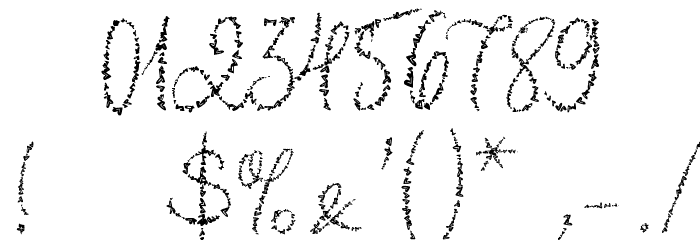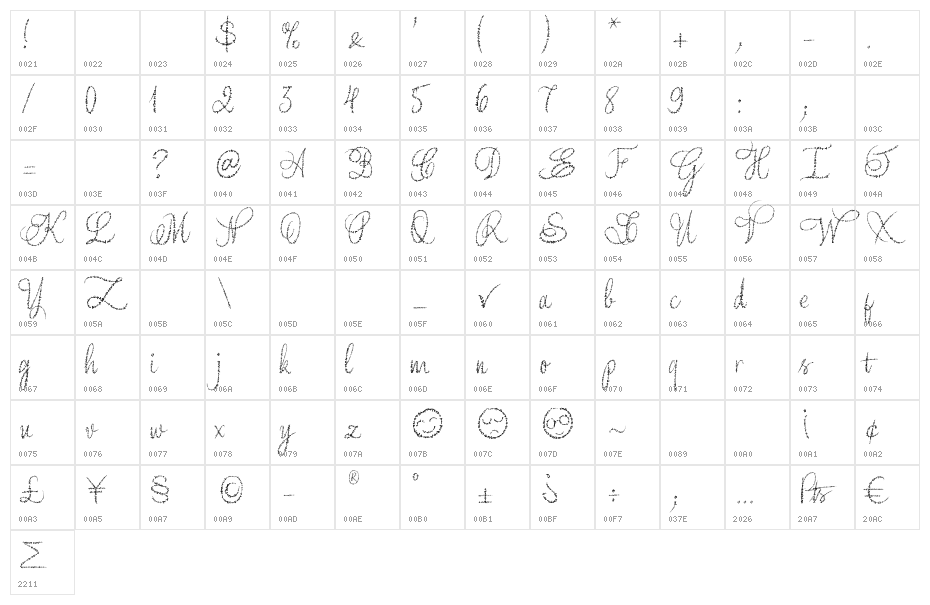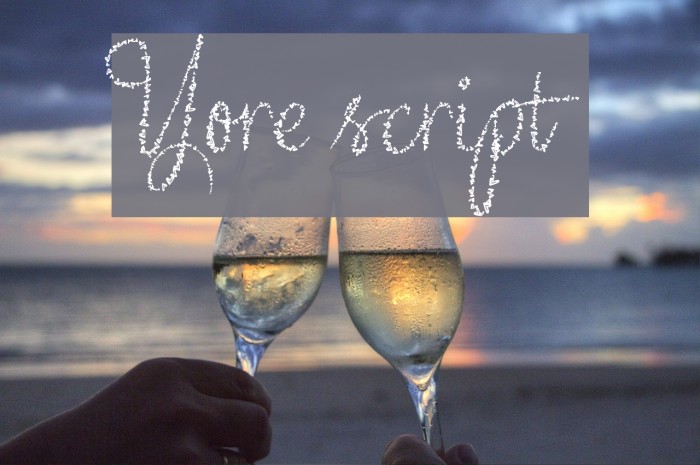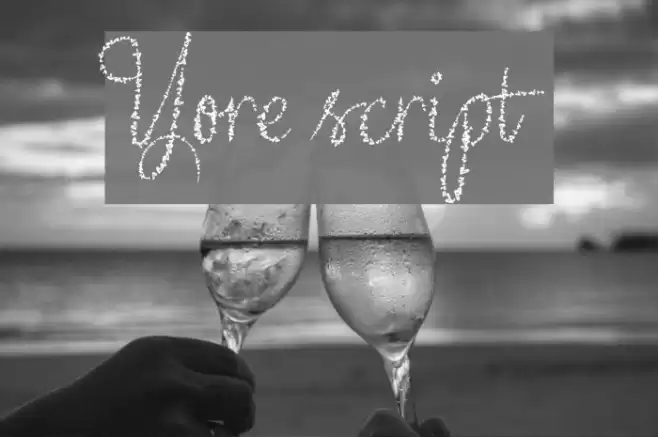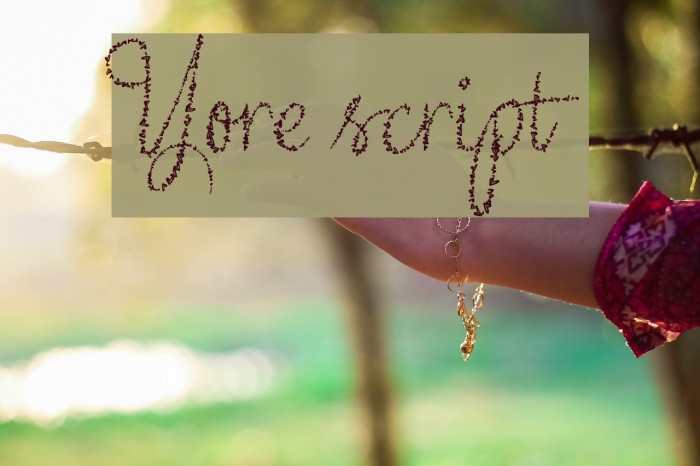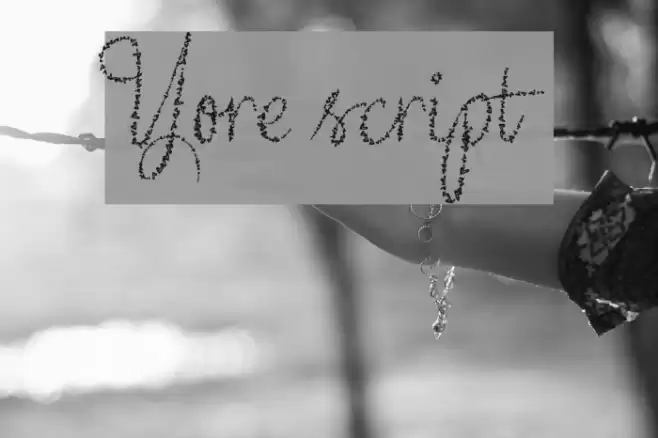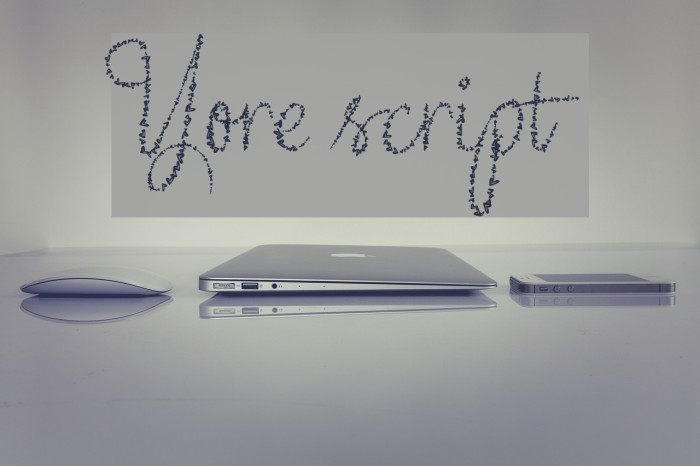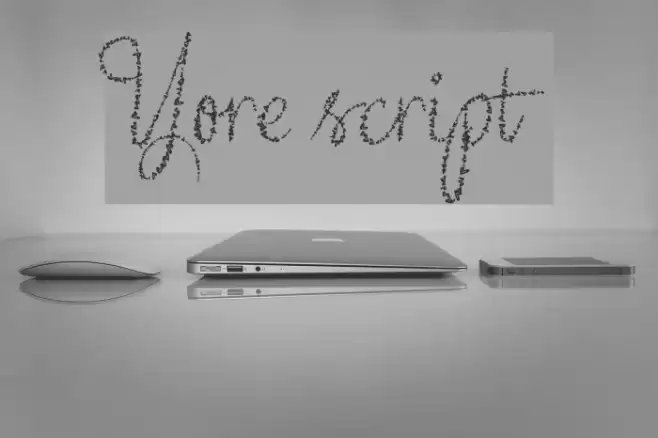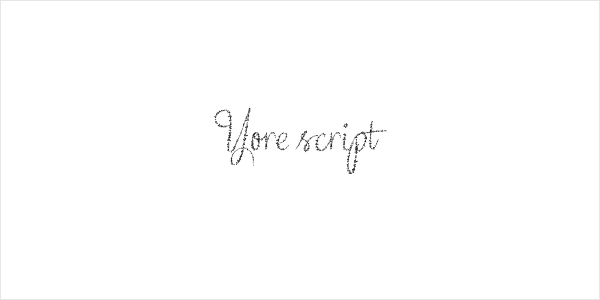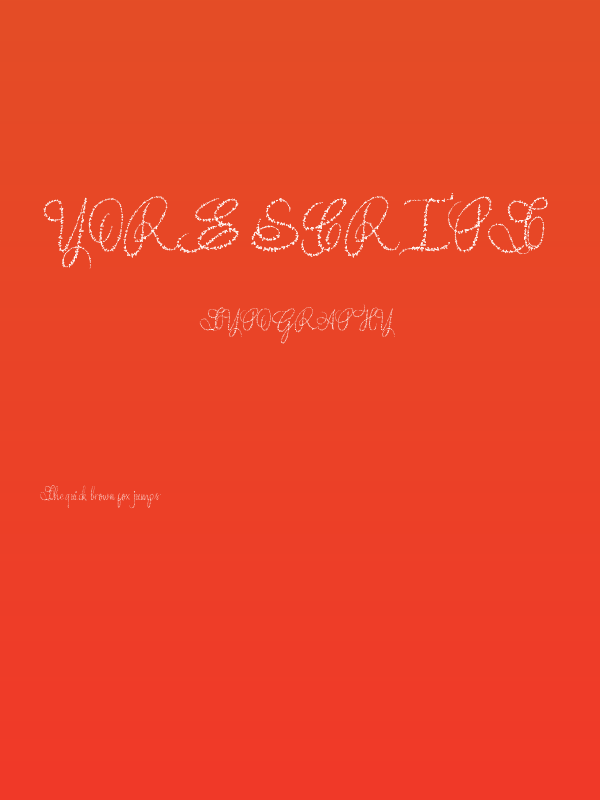
Yore script Font
Yore script Description
This script font features an elegant and flowing design, characterized by its cursive style with intricate loops and swashes. The letters are interconnected, creating a seamless and fluid appearance. The uppercase characters exhibit elaborate flourishes, while the lowercase letters maintain a consistent and graceful form. The numerals and special characters are designed to complement the overall script style, maintaining the same level of sophistication and fluidity. This font exudes a sense of elegance and charm, making it suitable for formal and decorative applications.